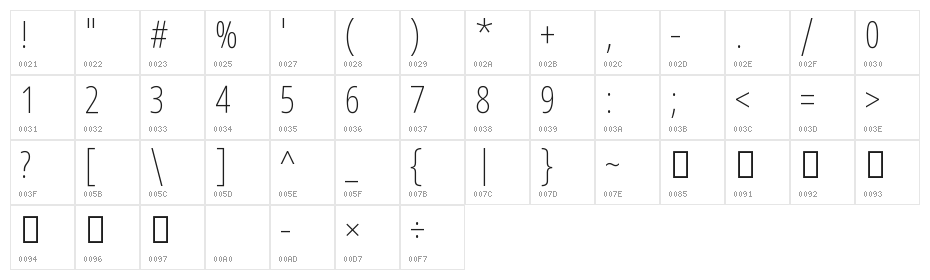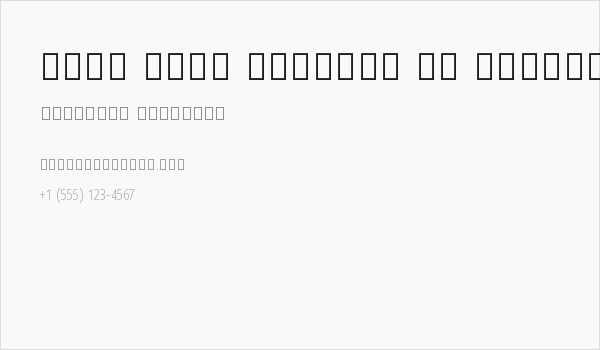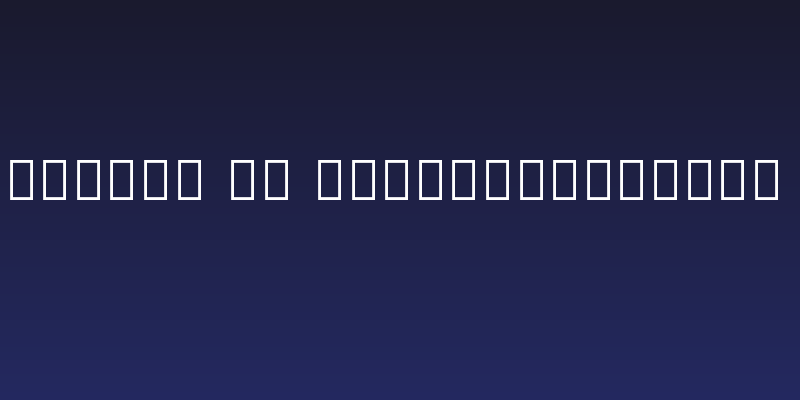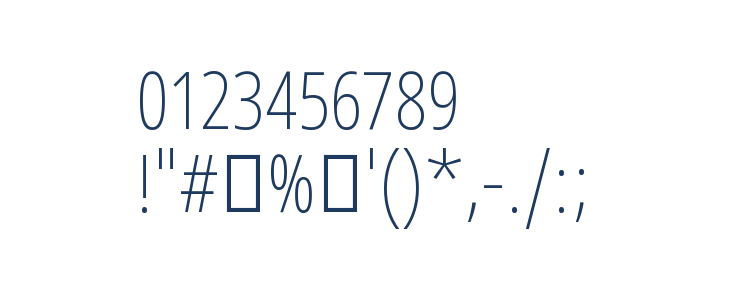
Noto Sans Sinhala UI ExtraCondensed ExtraLight Font
Noto Sans Sinhala UI ExtraCondensed ExtraLight Description
This font is a highly legible sans-serif typeface characterized by its extra light weight and extra condensed width. It features clean, straight lines and a modern aesthetic, making it suitable for digital interfaces and UI design. The numerals are uniform and easy to read, while the special characters maintain the same clarity and simplicity. The overall design is minimalistic, focusing on functionality and readability, which is ideal for both small and large text sizes.